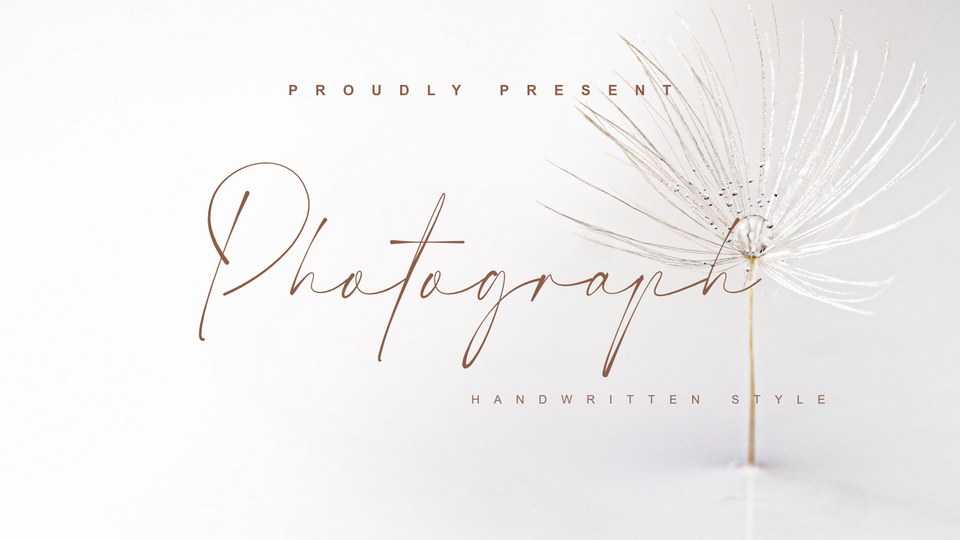
Download Photograph font, a stunning elegant signature style handwritten typeface, full of energy. Photograph font will turn any design project into a stand out.
Designer: Halymunt Studio